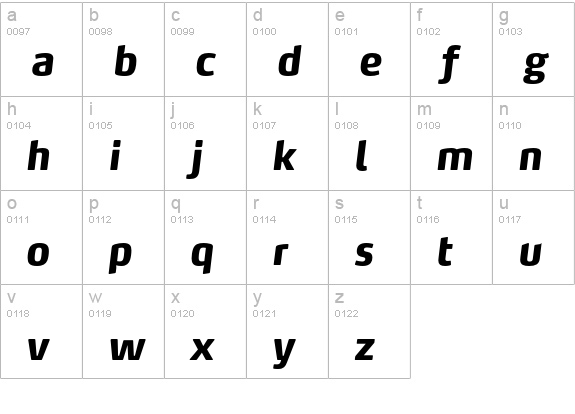
Max-ExtraBoldItalic Font Details
Max-ExtraBoldItalic is a striking and bold typeface that demands attention with its strong presence and stylish design. Perfect for making a statement, this font exudes confidence and modernity. The elegant italics add a touch of sophistication to any project, making it ideal for branding, headlines, and editorial design. The best part is that Max-ExtraBoldItalic is available for free download at FontsMarket.com. With its impressive weight and distinctive style, this font is sure to elevate your designs and leave a lasting impression. Unlock your creativity and make a bold statement with Max-ExtraBoldItalic today!